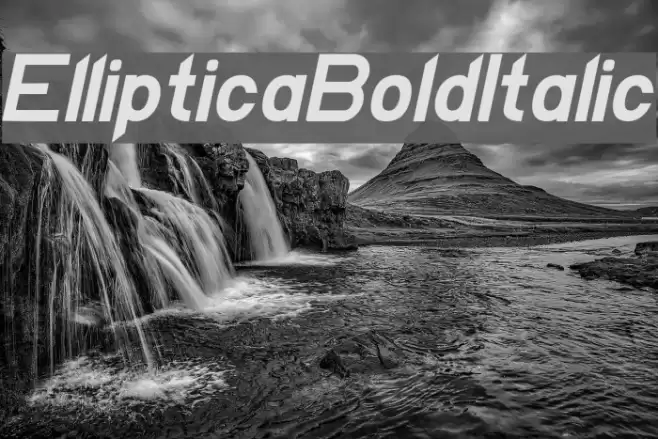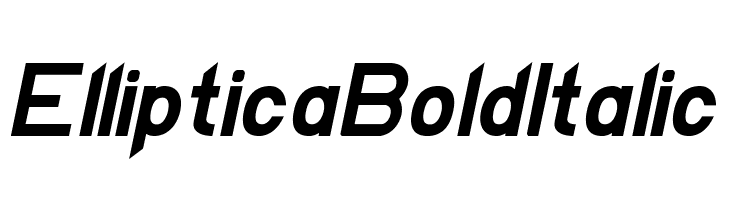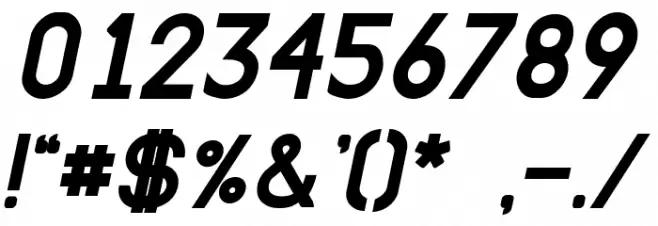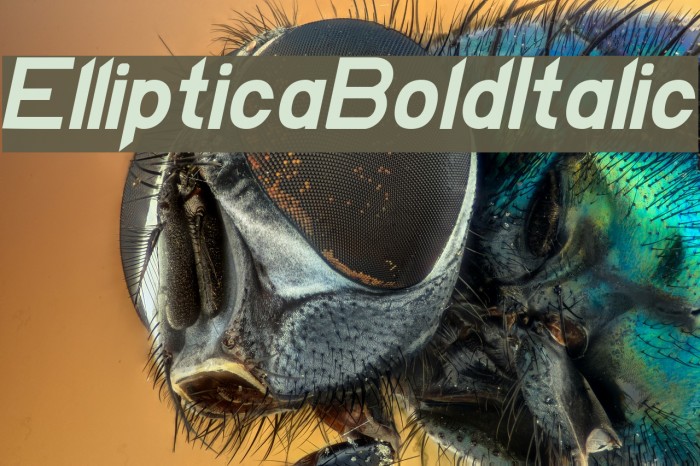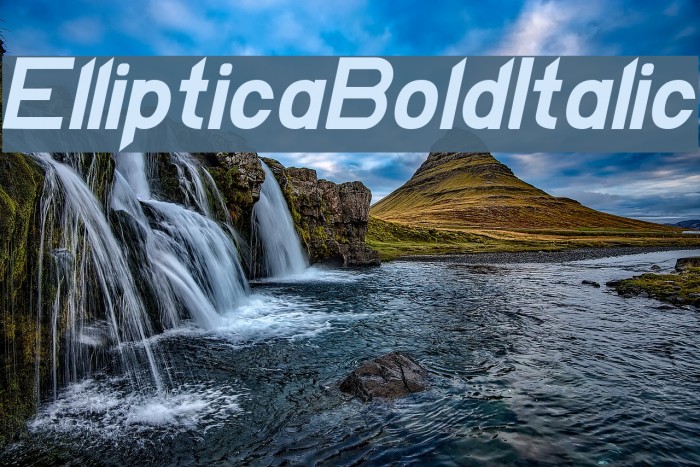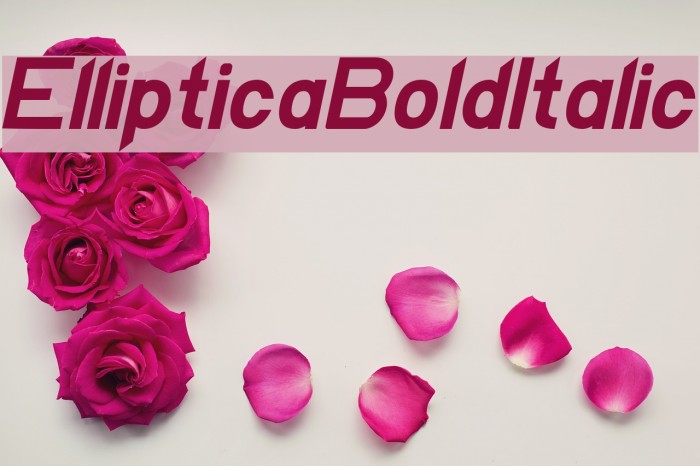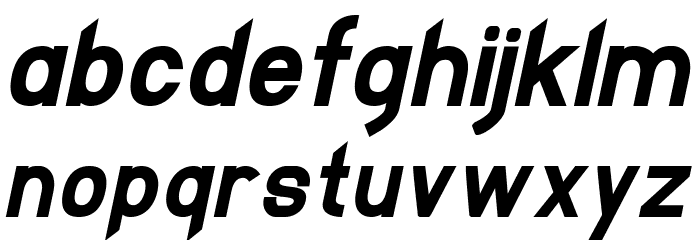
EllipticaBoldItalic Font
EllipticaBoldItalic Description
This font features a bold and italicized style, characterized by its slanted and dynamic appearance. The letters are slightly condensed, giving a sleek and modern look. The strokes are consistent in weight, providing a uniform and cohesive feel across all characters. The font maintains a high level of readability, making it suitable for various applications. The numerals and special characters are designed to match the overall aesthetic, ensuring a harmonious visual presentation. Its bold nature makes it stand out, while the italicization adds a touch of elegance and movement.
A bold, italicized font with a modern and dynamic appearance from Uncategorized fonts.
- Proposed Projects: Ideal for branding, advertising, headlines, and any project requiring a bold and modern typeface.
- Use Case: Headlines, Logos, Branding